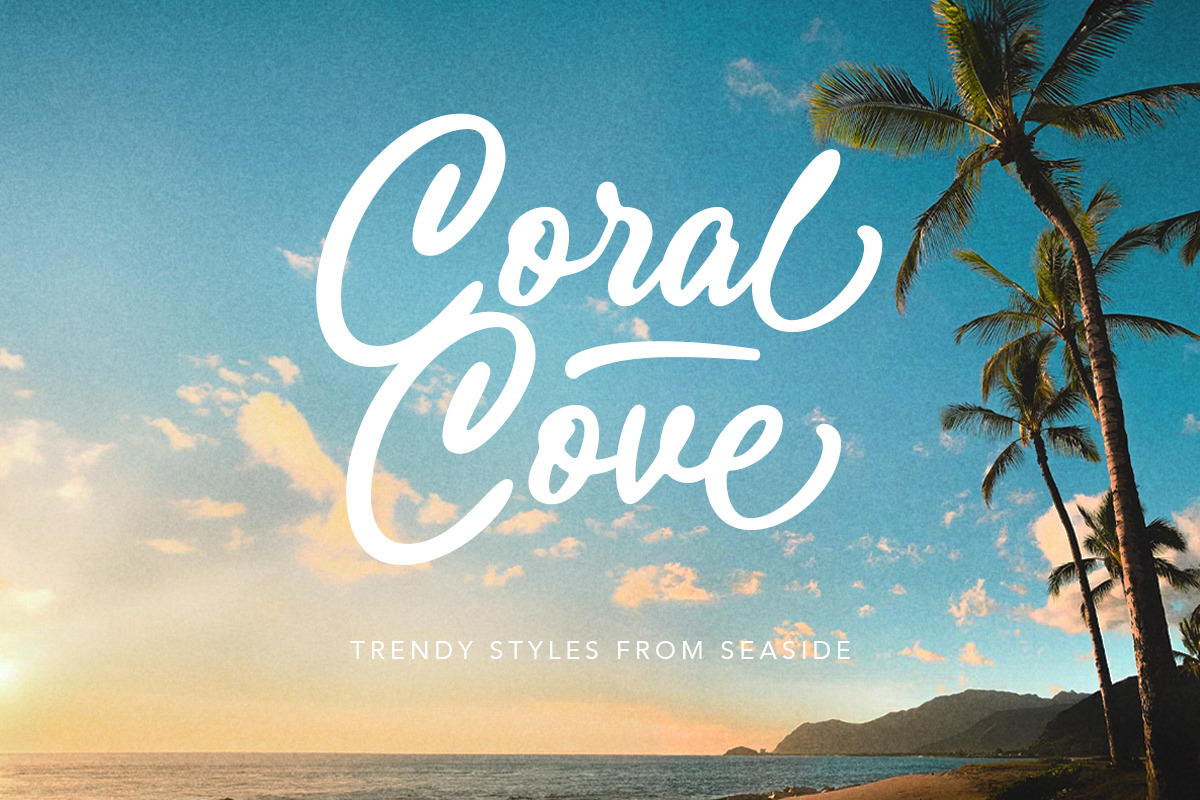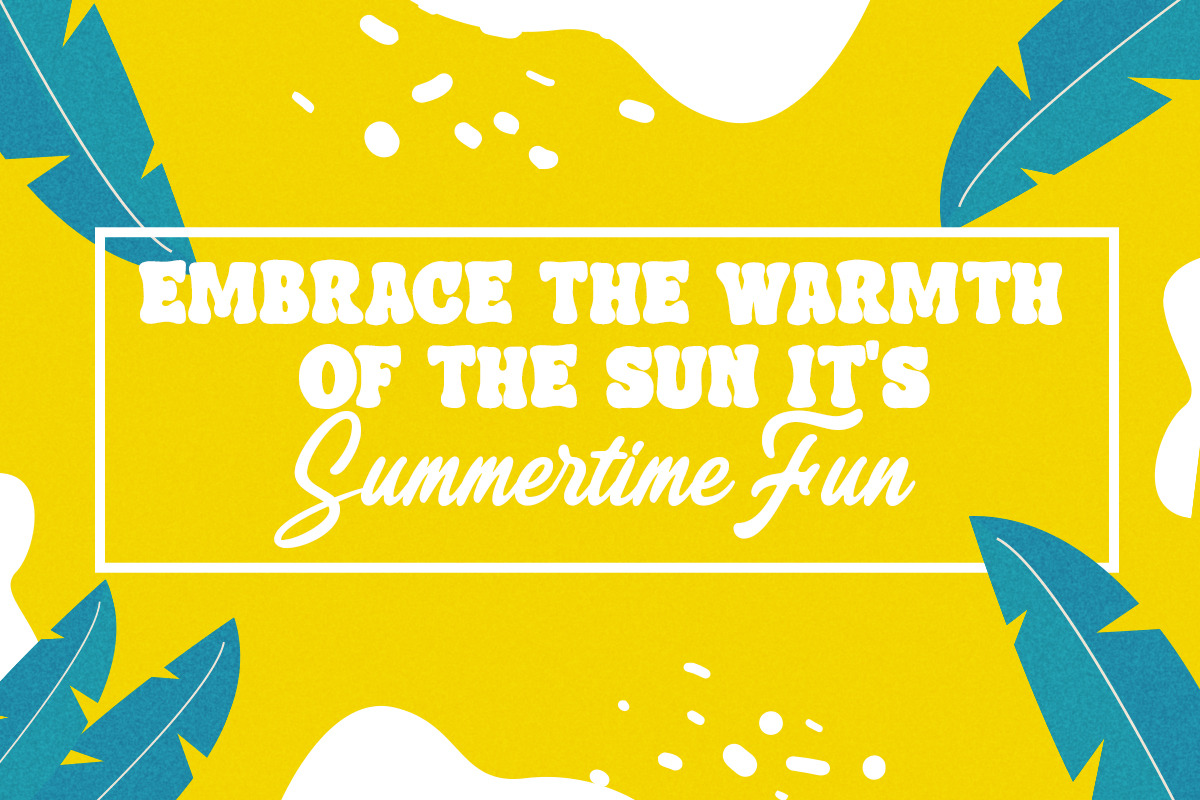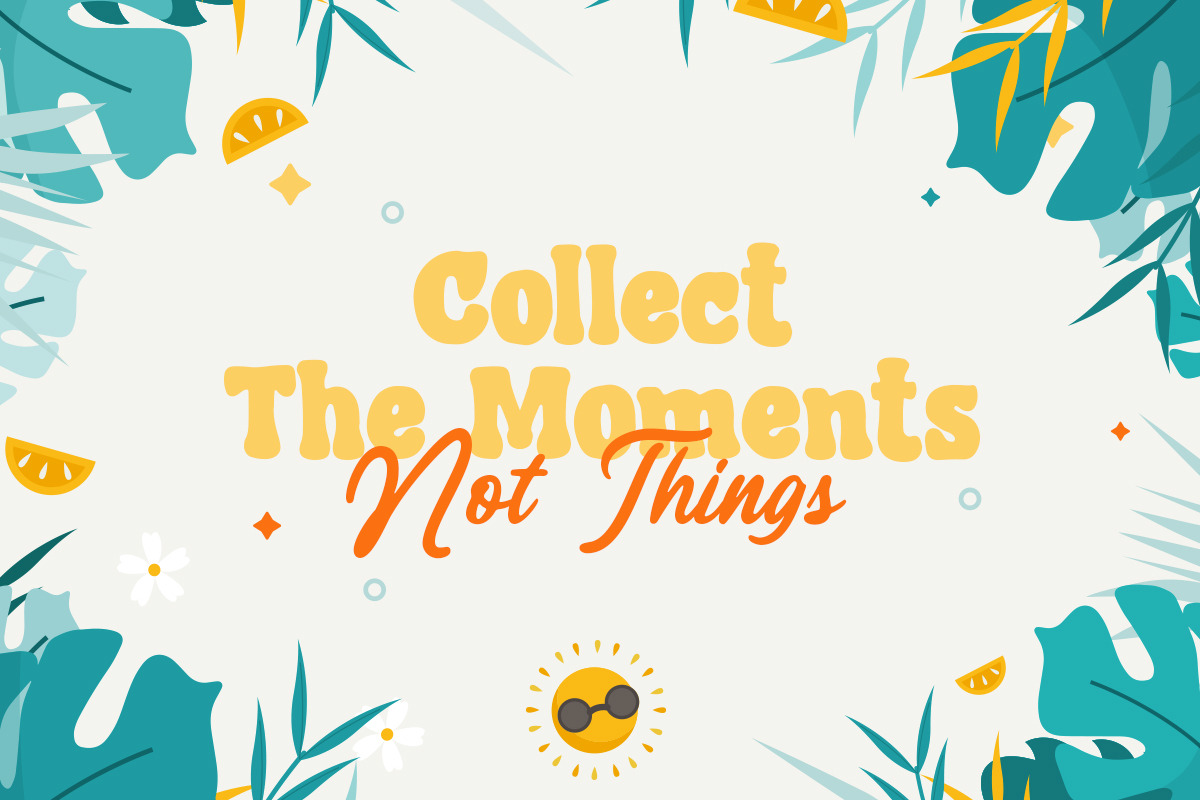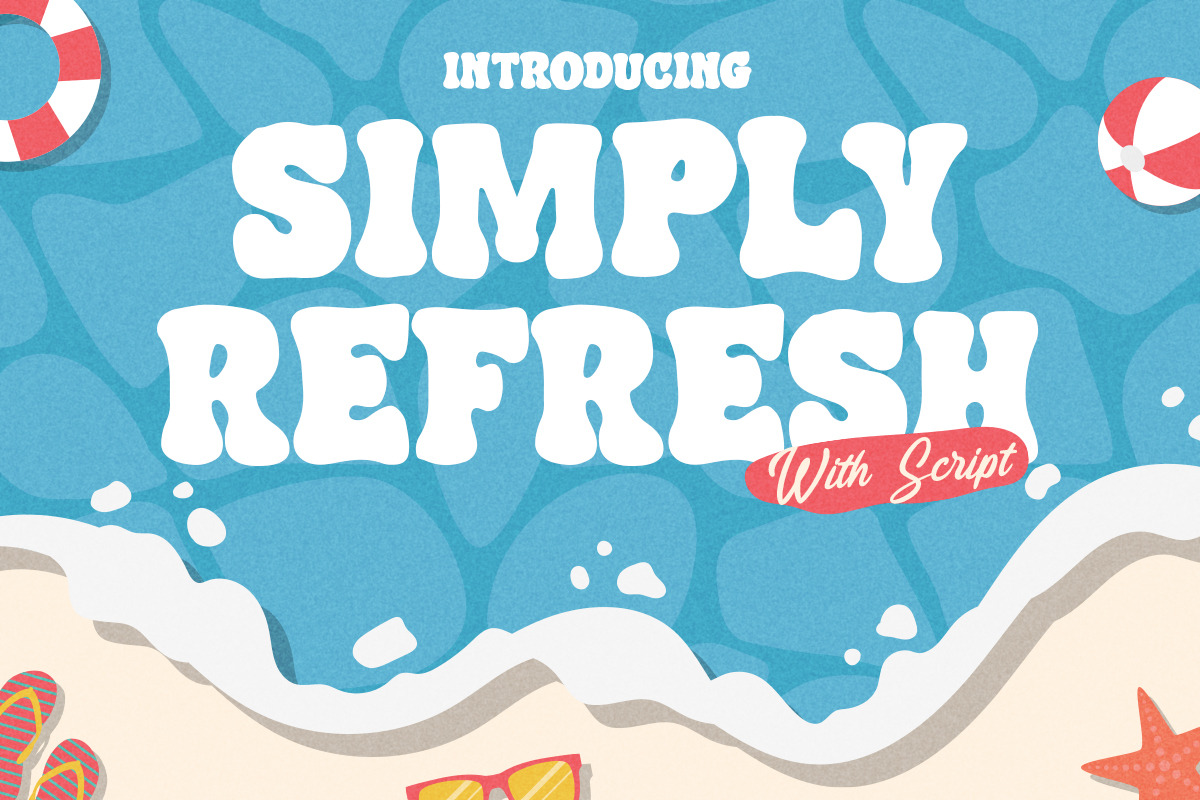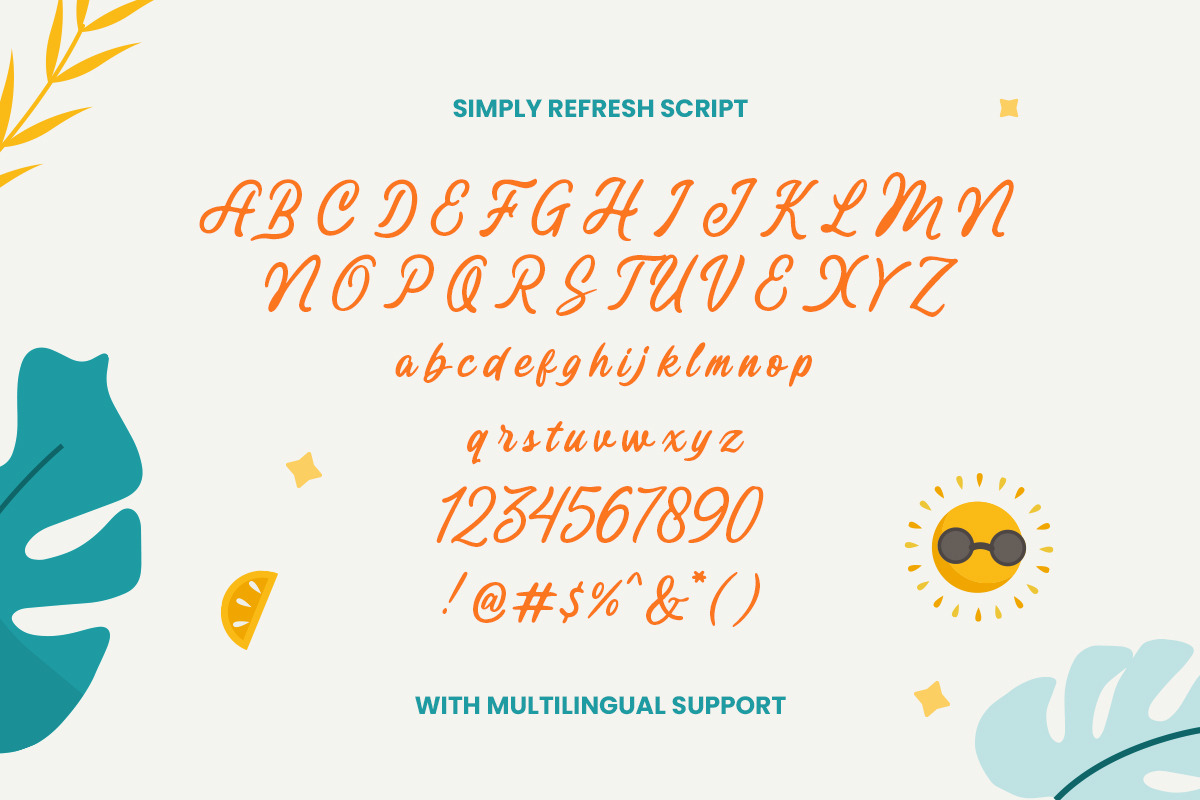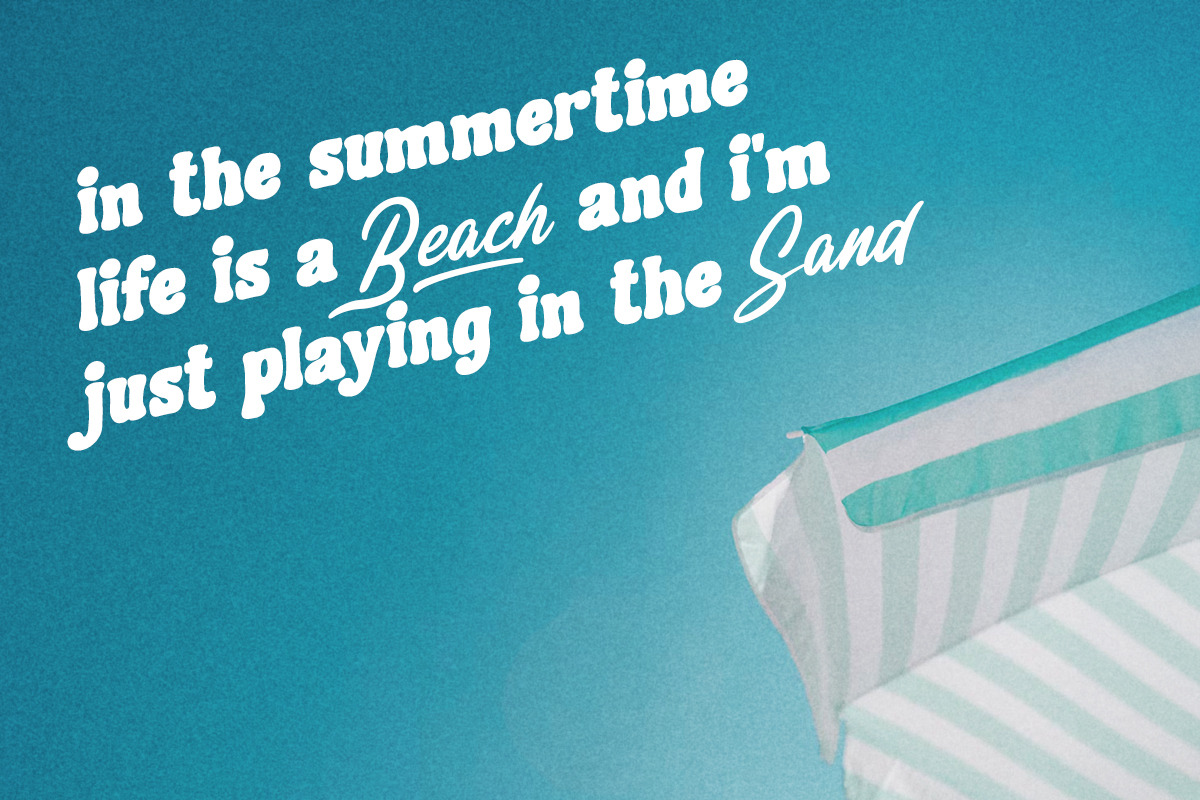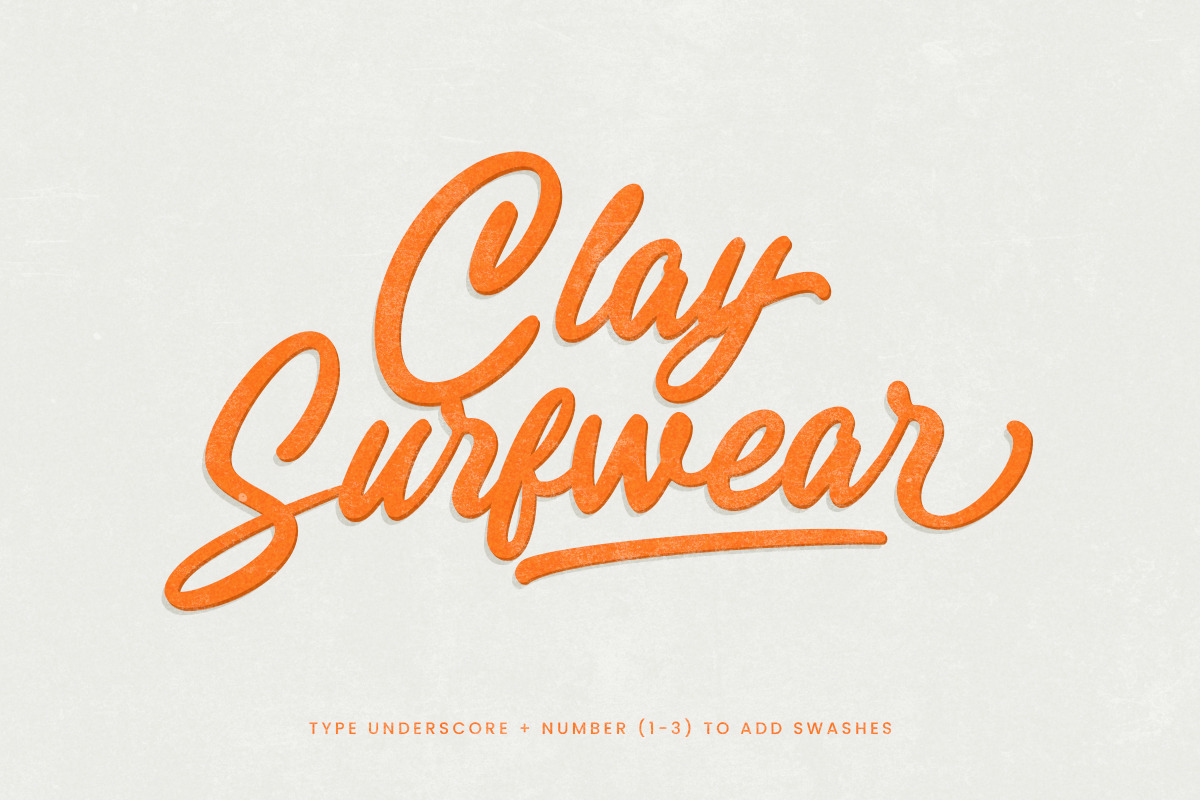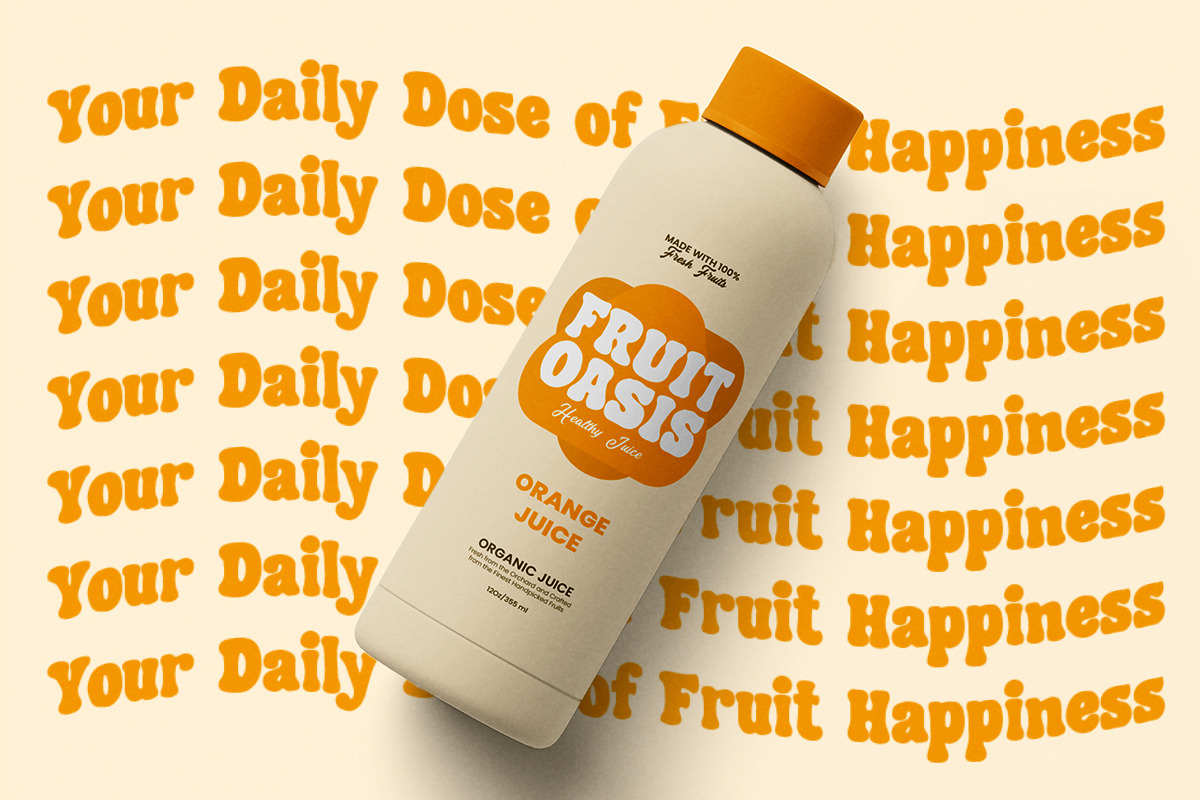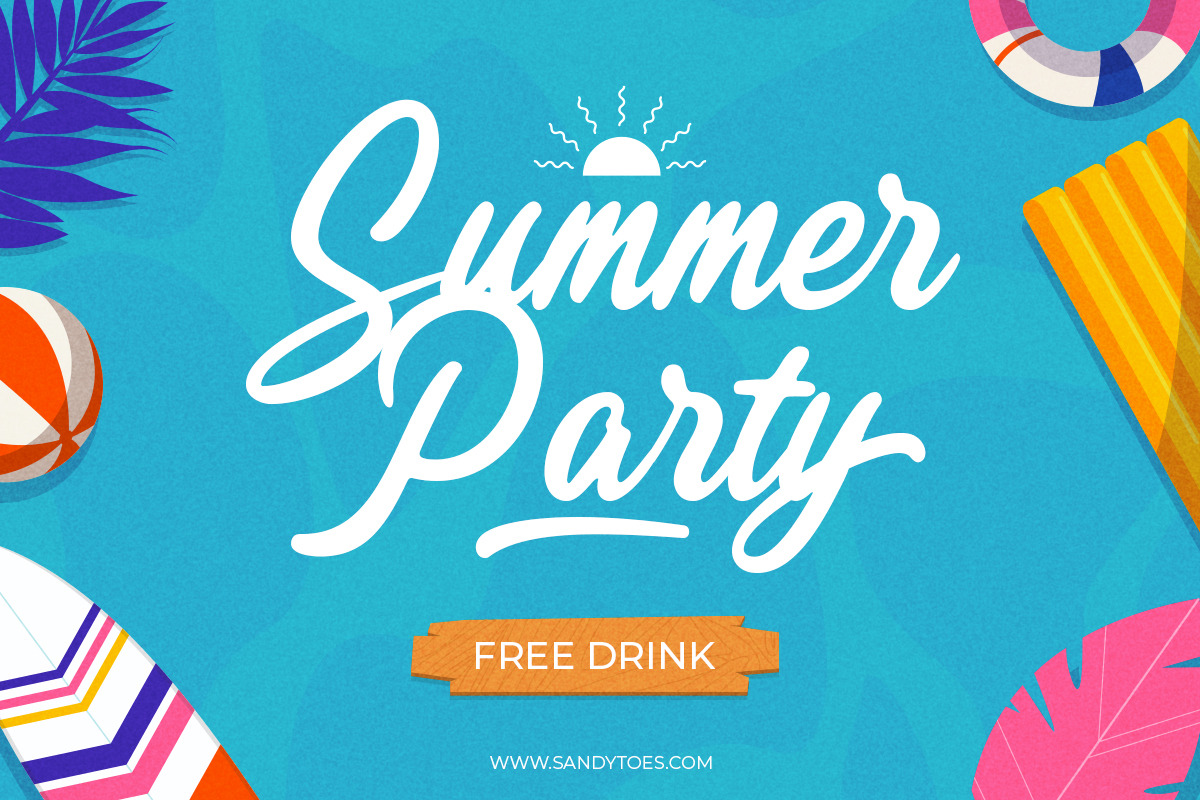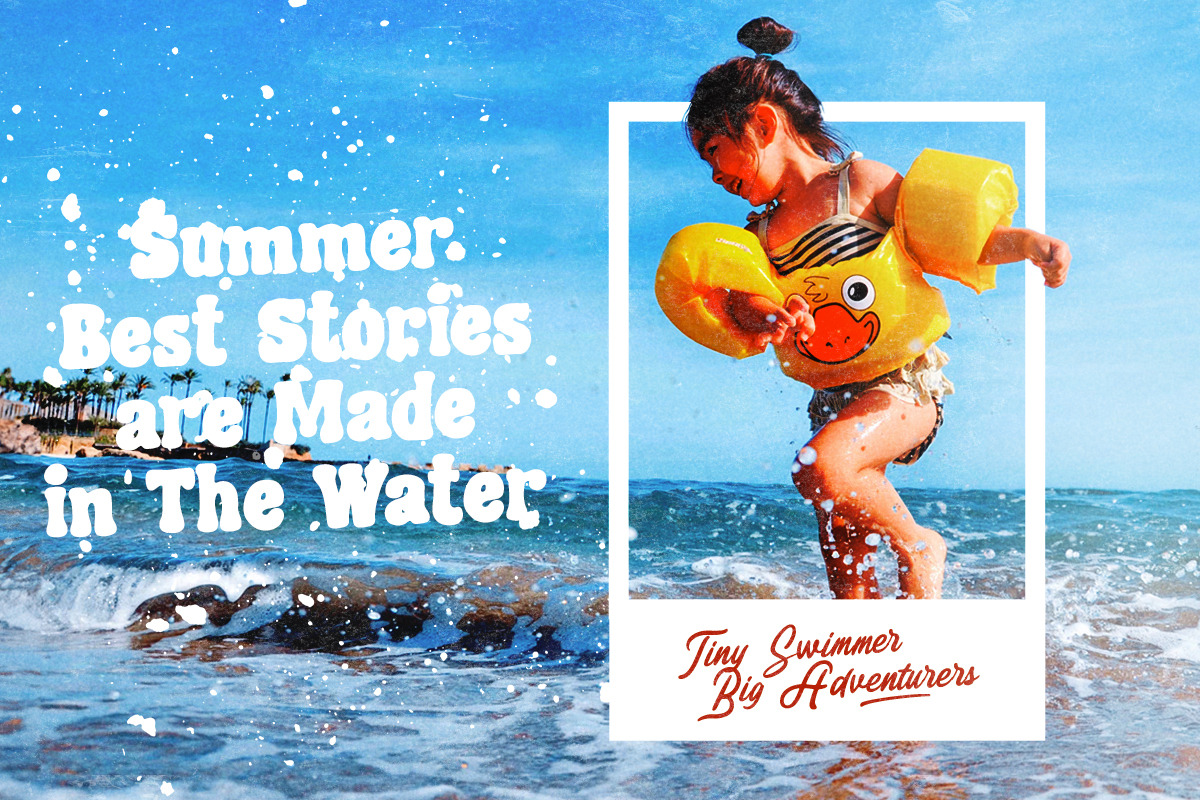
Simply Refresh - Fresh Font Duo
Simply Refresh is a playful display font pairing with script version. its unique letterforms and charming character, whether you're creating children's illustrations, packaging, or social media graphics, Bunny Galore brings personality and vibrancy to your designs, making them visually captivating and engaging.